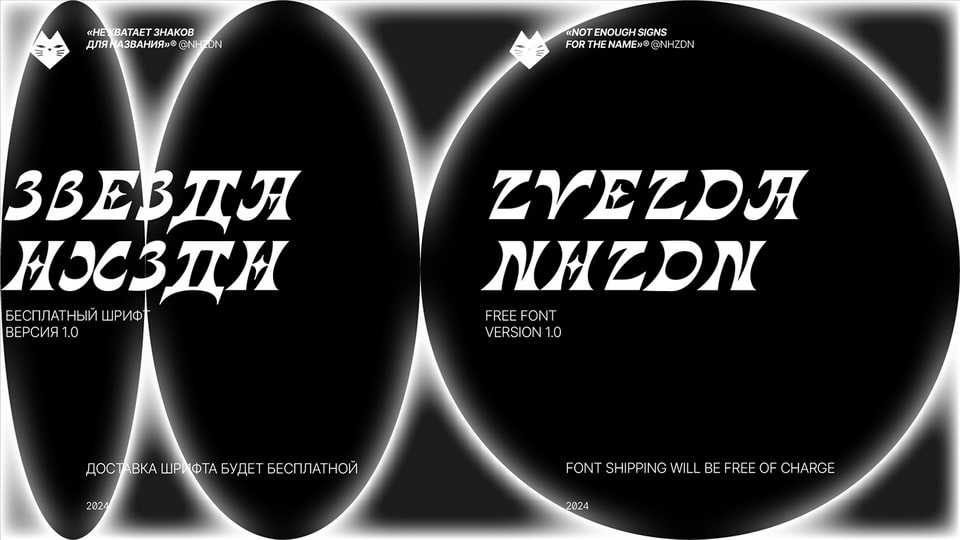
Download Zvezda NHZDN font, a creative and distinctive display typeface inspired by a love for the stars and developed for the community Not enough signs for the name.
Designer: Konstantin Kuznetsov